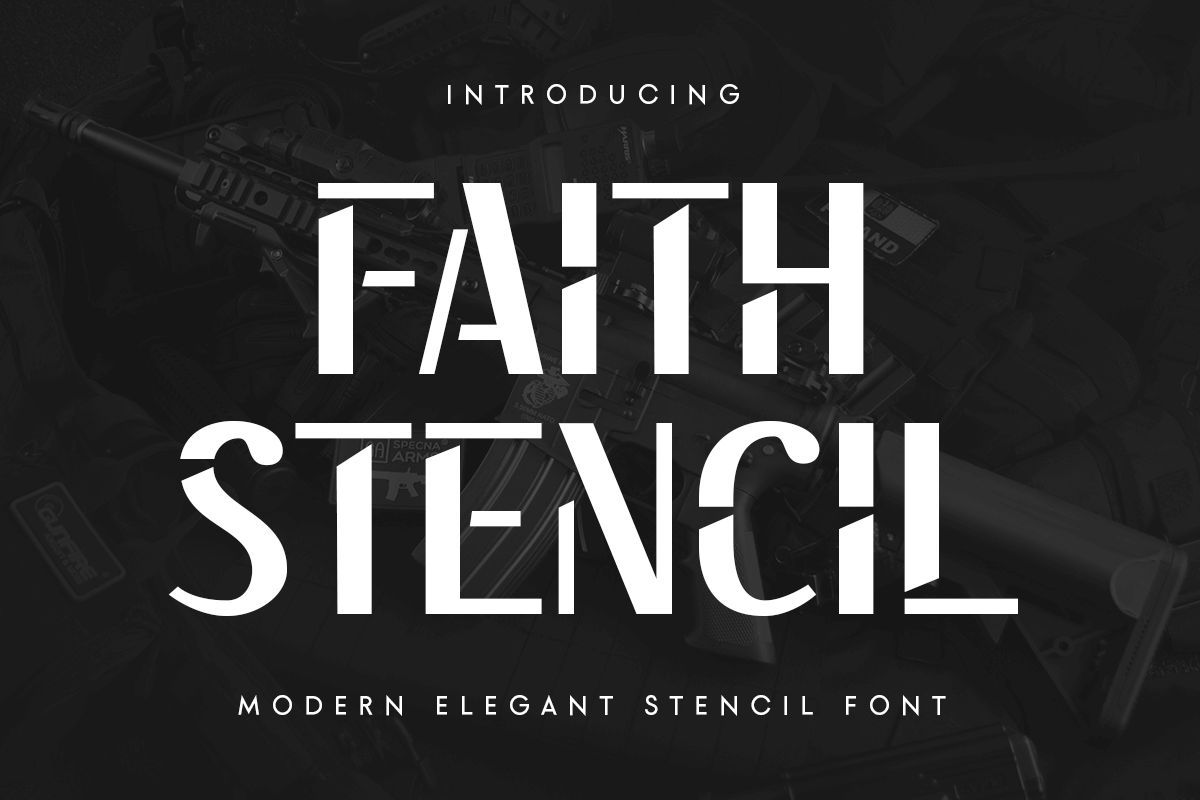
Faith Stencil
A Stencil style of Faith font with gentle and exclusive shape, ready for Action branding needs will be ready to add value of your brand. It so nice to leverage designer or product owner that need solutions to make their design look more stunning and modern. And specially for Faith Stencil font, We prepared any action characters to help you create unlimited variations for your creative needs.
Faith Stencil font ready with:
Any Sharp characters to get creative variations
Preview as a inspirations that you can do with Faith Stencil font